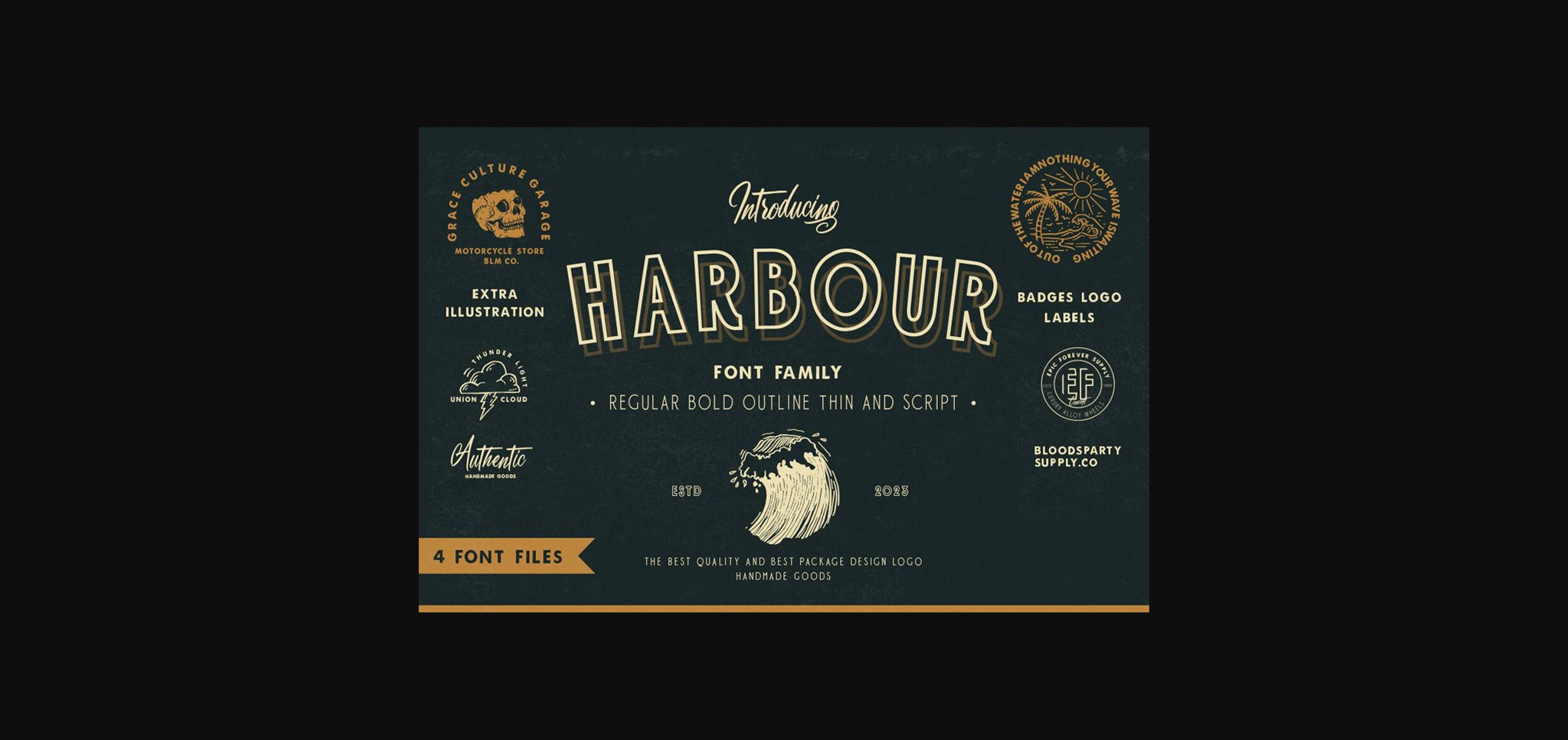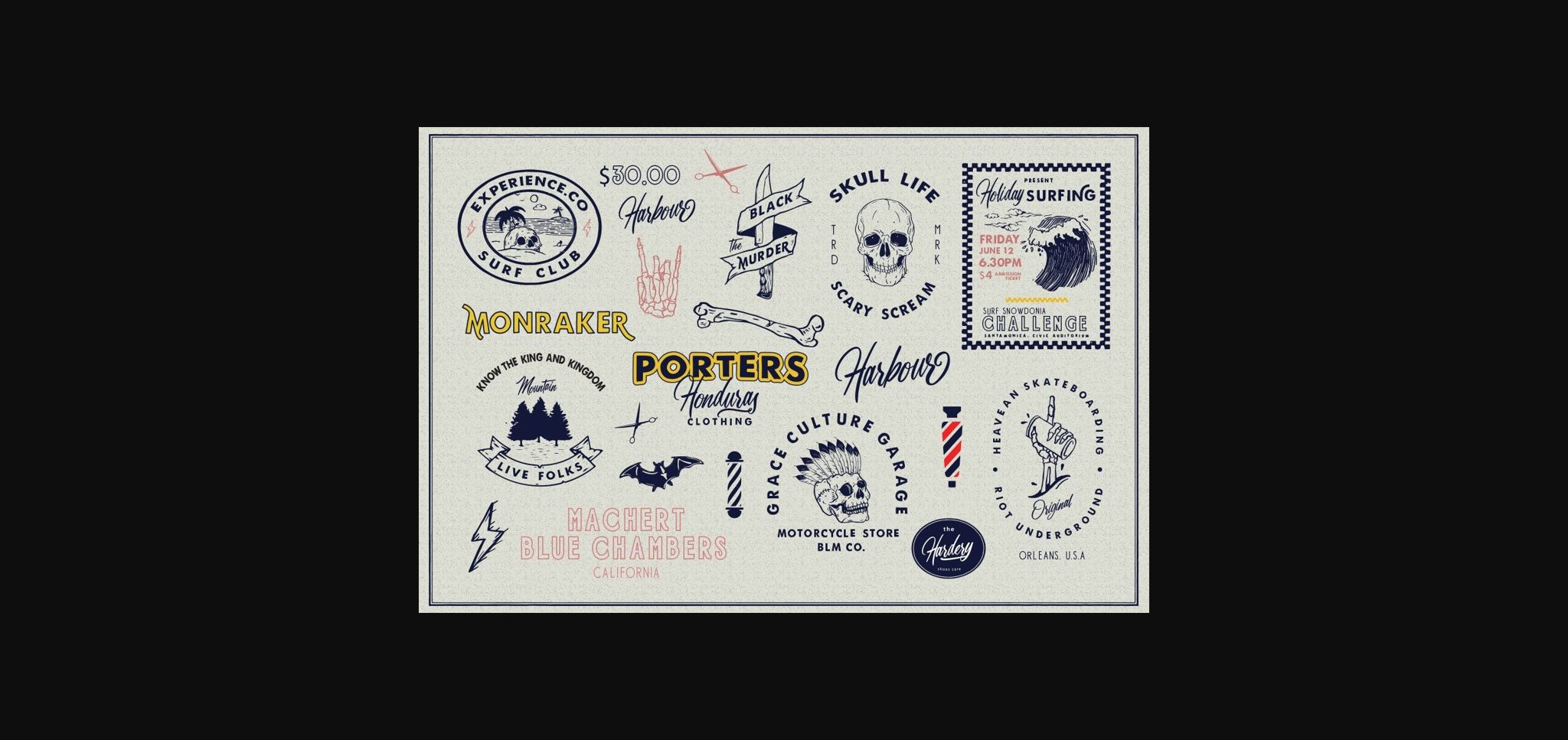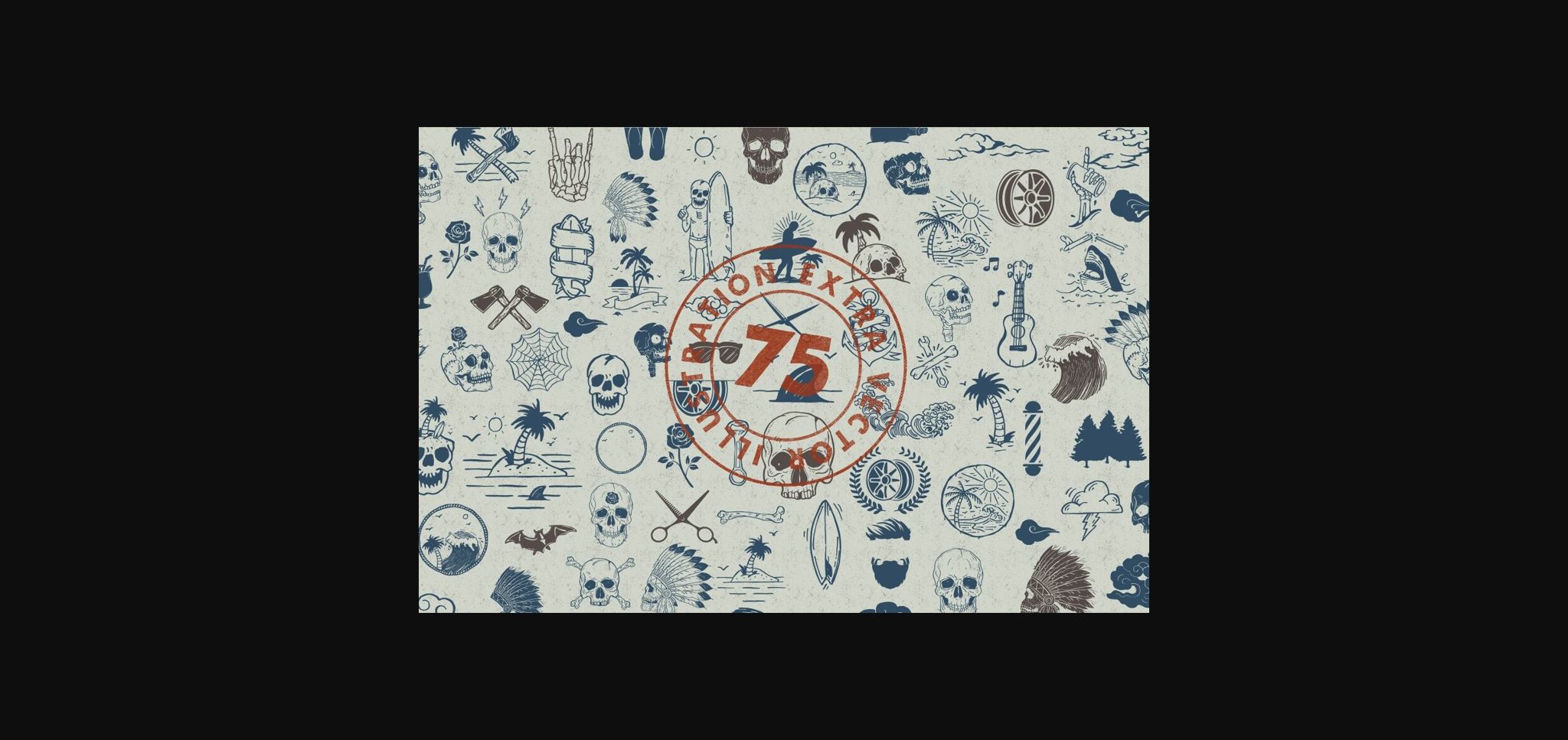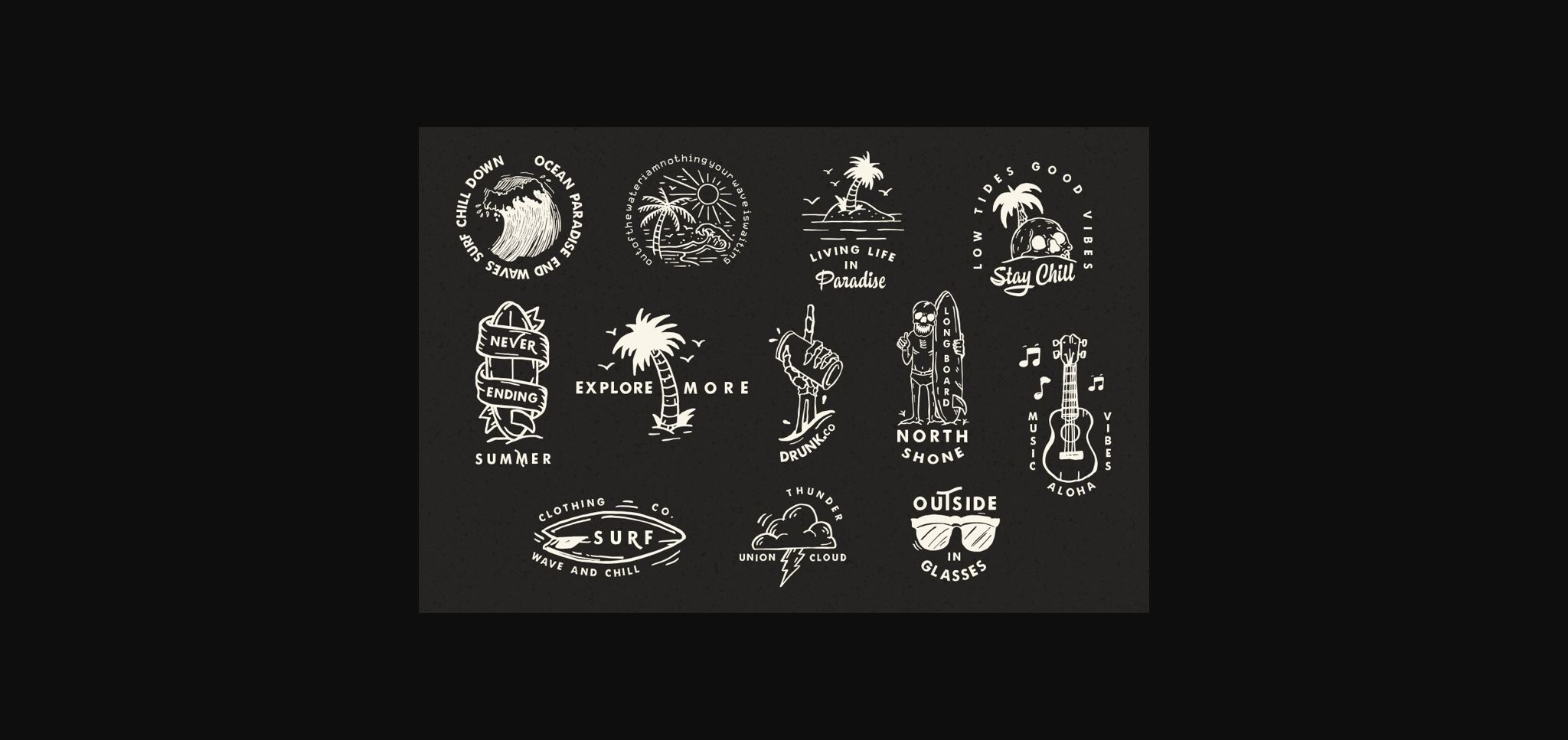
About Harbour Font
Proudly presents Harbour our latest font family typeface with Script, sans Serif, and outline sans serif. The script also comes with Ligatures and Stylistic Alternates that will make the signature font more real.
Harbour is the very best choice font for Wedding invitations, quotes, Posters, Apparel design, Logos, Print Ads, Digital Ads, Promotion Products etc.